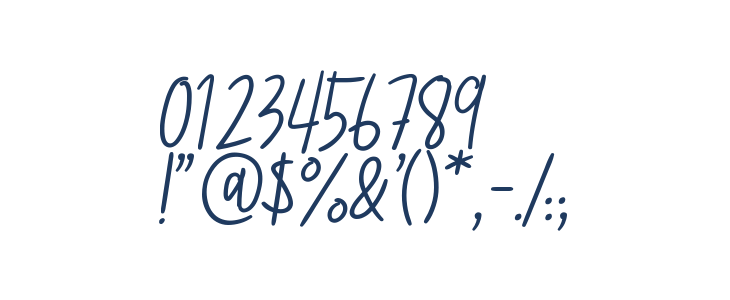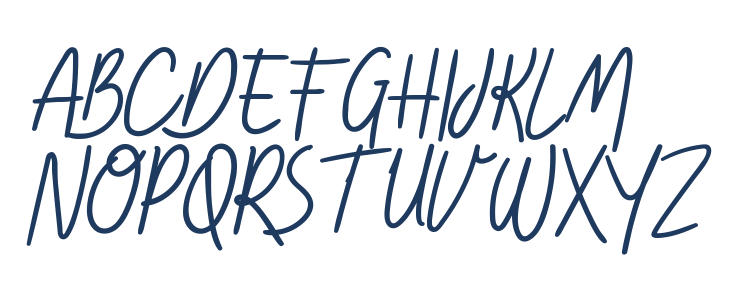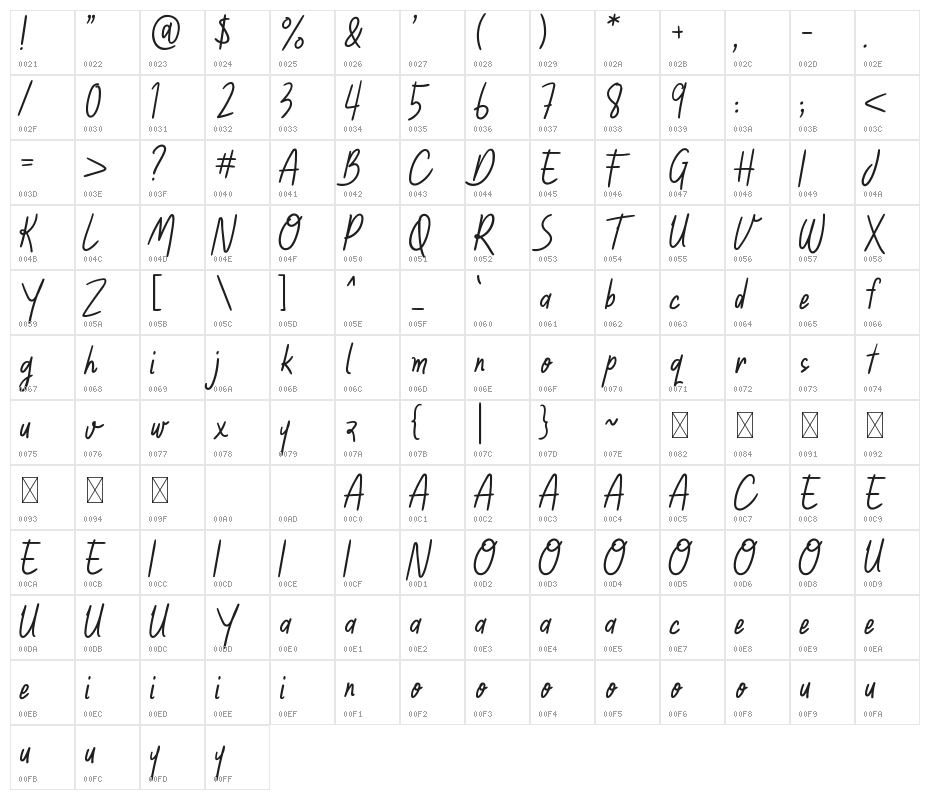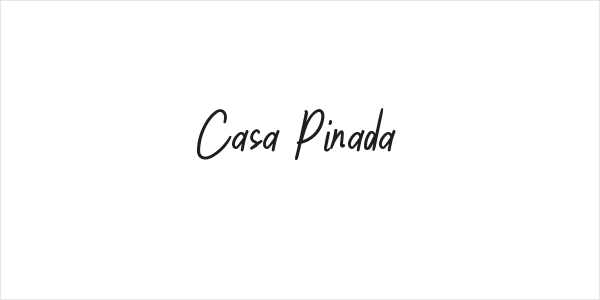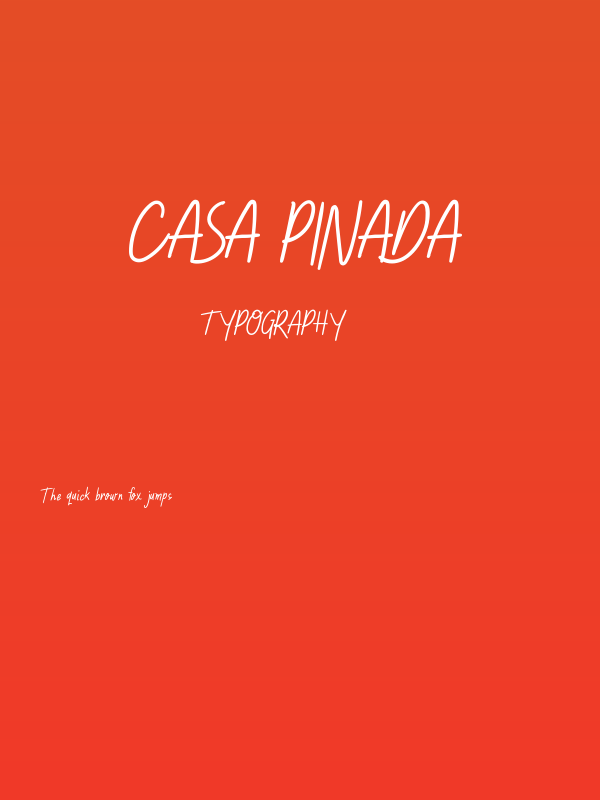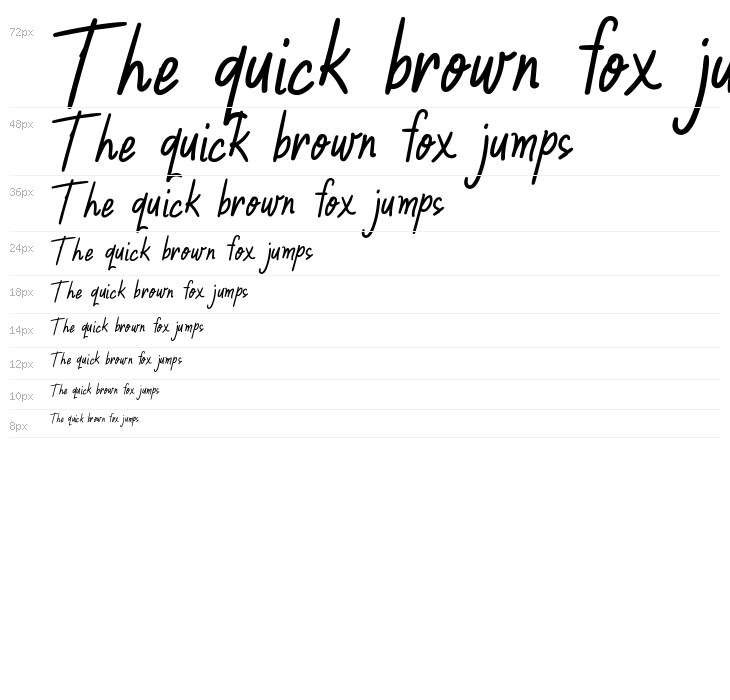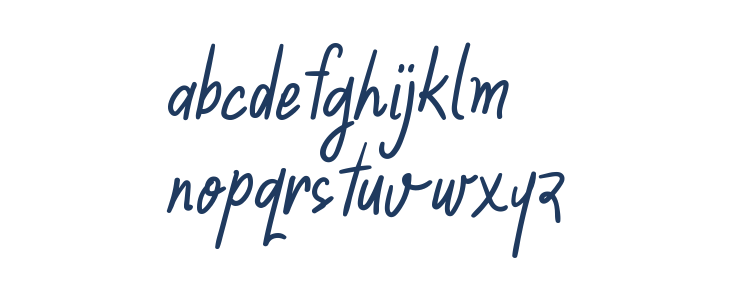
Casa Pinada Font
Casa Pinada Description
A casual, handwritten script font with tall, narrow letterforms and a natural, flowing style. The strokes are consistent in thickness, and the characters have a lively, informal appearance.
| Overall Style | Casual, Modern, Handwritten |
| Use Case | Logos, Headlines, Invitations, Social Media |
| Proposed Projects | Greeting cards, personal branding, invitations, social media graphics, informal posters. |